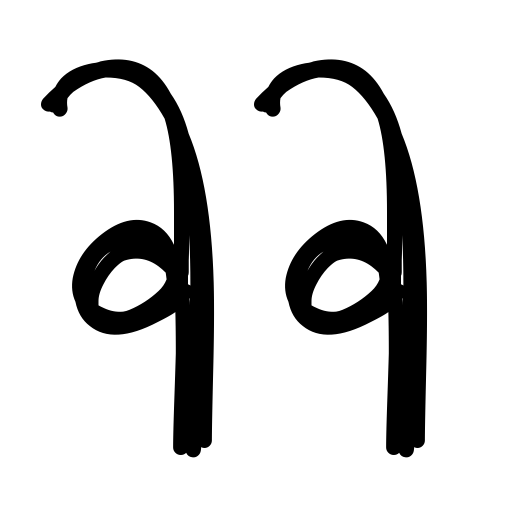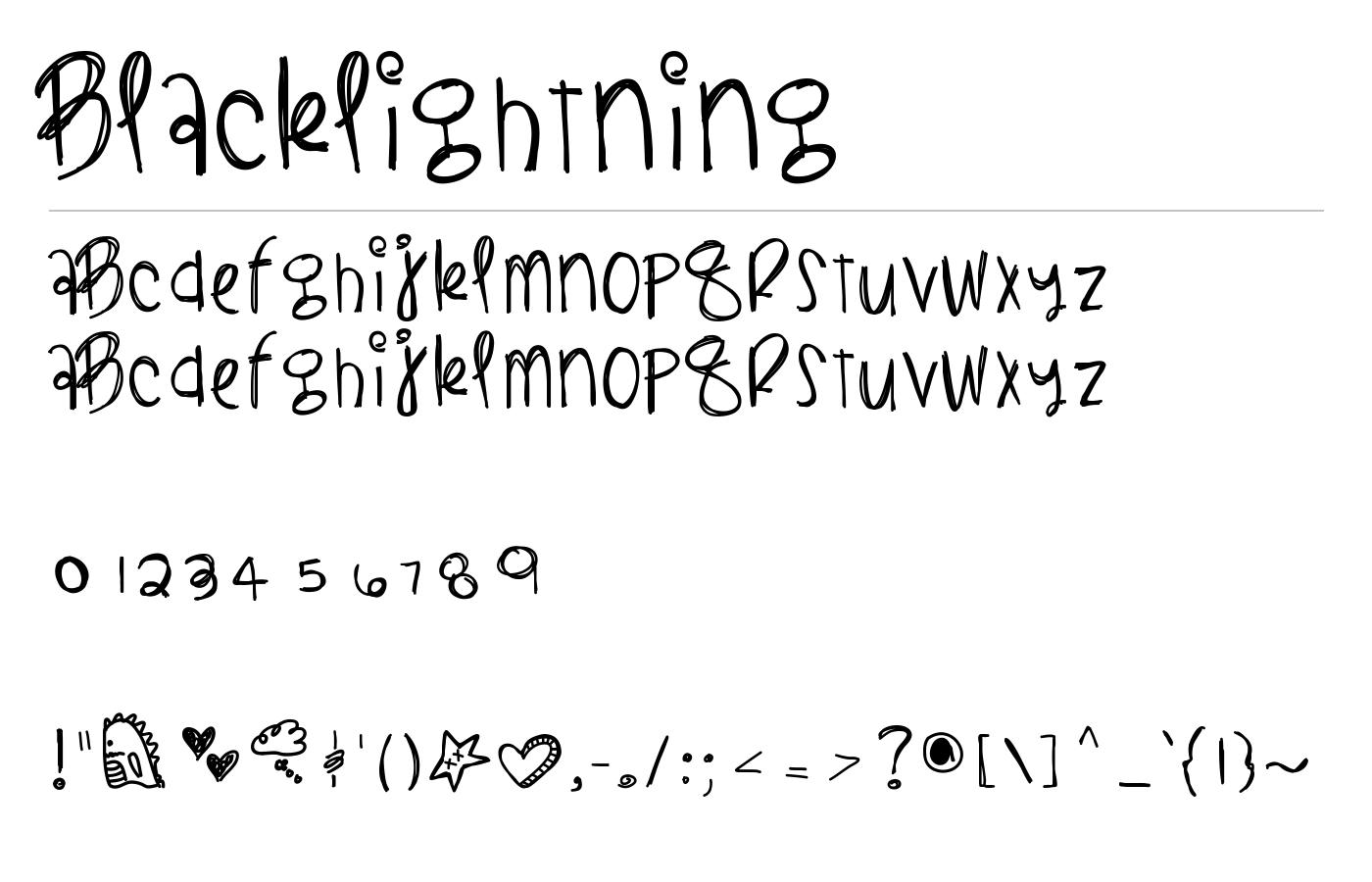
BlackLightning is a playful, hand-drawn sans serif font with an informal and quirky style. Its irregular strokes and whimsical details give it a lively, casual feel that works well for creative projects, children’s materials, and fun branding needing a personal touch. This font shines in headlines, logos, and designs looking for a unique, friendly personality.
BlackLightning Font
About BlackLightning Font